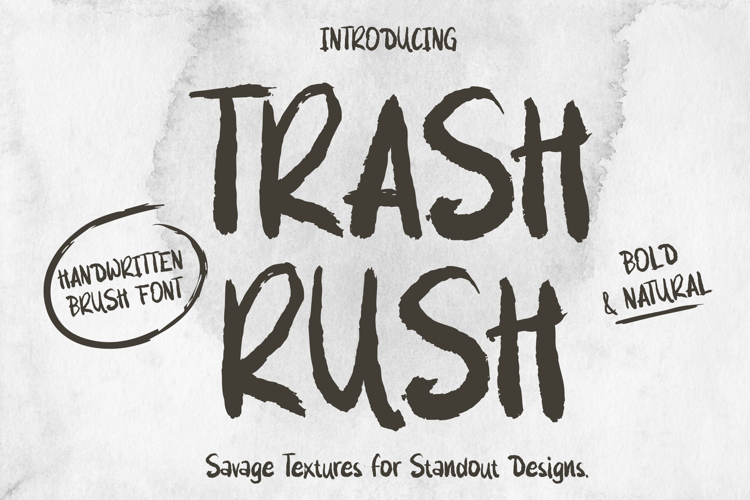
Trash Rush - Bold Handwritten Brush Font
Bring raw energy and authentic character to your designs with Trash Rush — a bold, textured handwritten brush font crafted for standout creative work.
Built from real brushstrokes, each character carries natural roughness and organic imperfection that makes every layout feel alive. Whether you’re designing for craft packaging, music posters, food branding, or social media content — Trash Rush delivers the visual punch your project demands.
WHY DESIGNERS LOVE IT: Trash Rush goes beyond a typical display font. The heavy brush weight commands attention at large sizes, while the hand-painted texture adds warmth and authenticity that feels impossible to fake. It’s the kind of font that makes a poster look like it was designed — not generated.
PERFECT FOR:
- Music festival & concert posters
- Tattoo-style and grunge branding
- Social media graphics & YouTube thumbnails
- Editorial headlines & magazine layouts
- Packaging with a raw, handcrafted feel
FONT FEATURES:
- Bold handwritten brush style with natural ink texture
- Full uppercase & lowercase alphabet
- Works beautifully at large display sizes